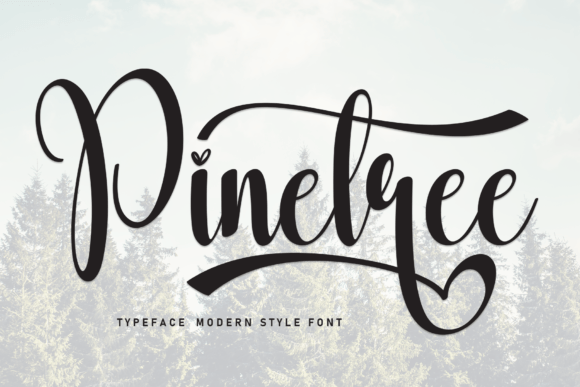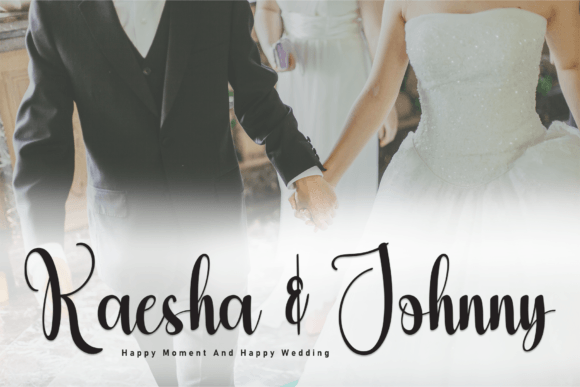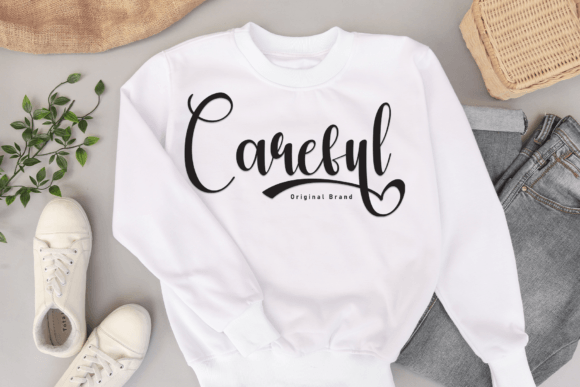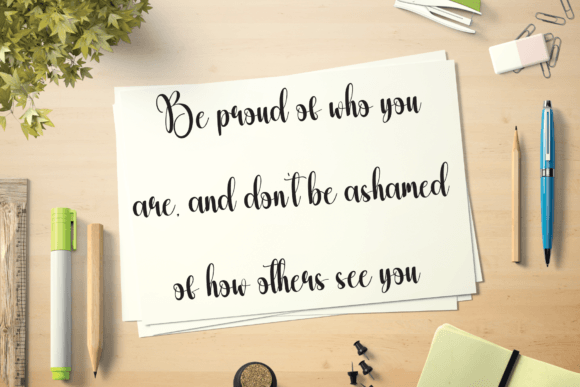
Pinetree Font
About the Pinetree Font
Elevate your designs with Pinetree Font, a font that combines sophistication with readability. Pinetree is a fancy and elegant handcrafted font that was created to impress your audience and make your branding shine. Make your projects dance with this elegant and wonderful font wherever you use it.
Pinetree’s elegant, handcrafted style is ideal for headlines, logos, and short-form text in branding materials or high-end packaging. Its decorative nature makes it less suitable for body text or UI elements where readability is paramount. Avoid using it for large blocks of text; its intricacy can hinder legibility.
Its sophisticated personality pairs well with clean sans-serif fonts like Open Sans or Lato for a balanced contrast, or with a classic serif such as Garamond or Didot for a more traditional feel. For a touch of playfulness, consider pairing it with a handwritten script font, keeping the script usage minimal to avoid overwhelming Pinetree’s delicate details.
Pinetree projects a feeling of refined luxury. Brands focused on high-end fashion, cosmetics, or artisanal goods would find it particularly fitting.
Pinetree Font Usage Examples
Pinetree Font Example